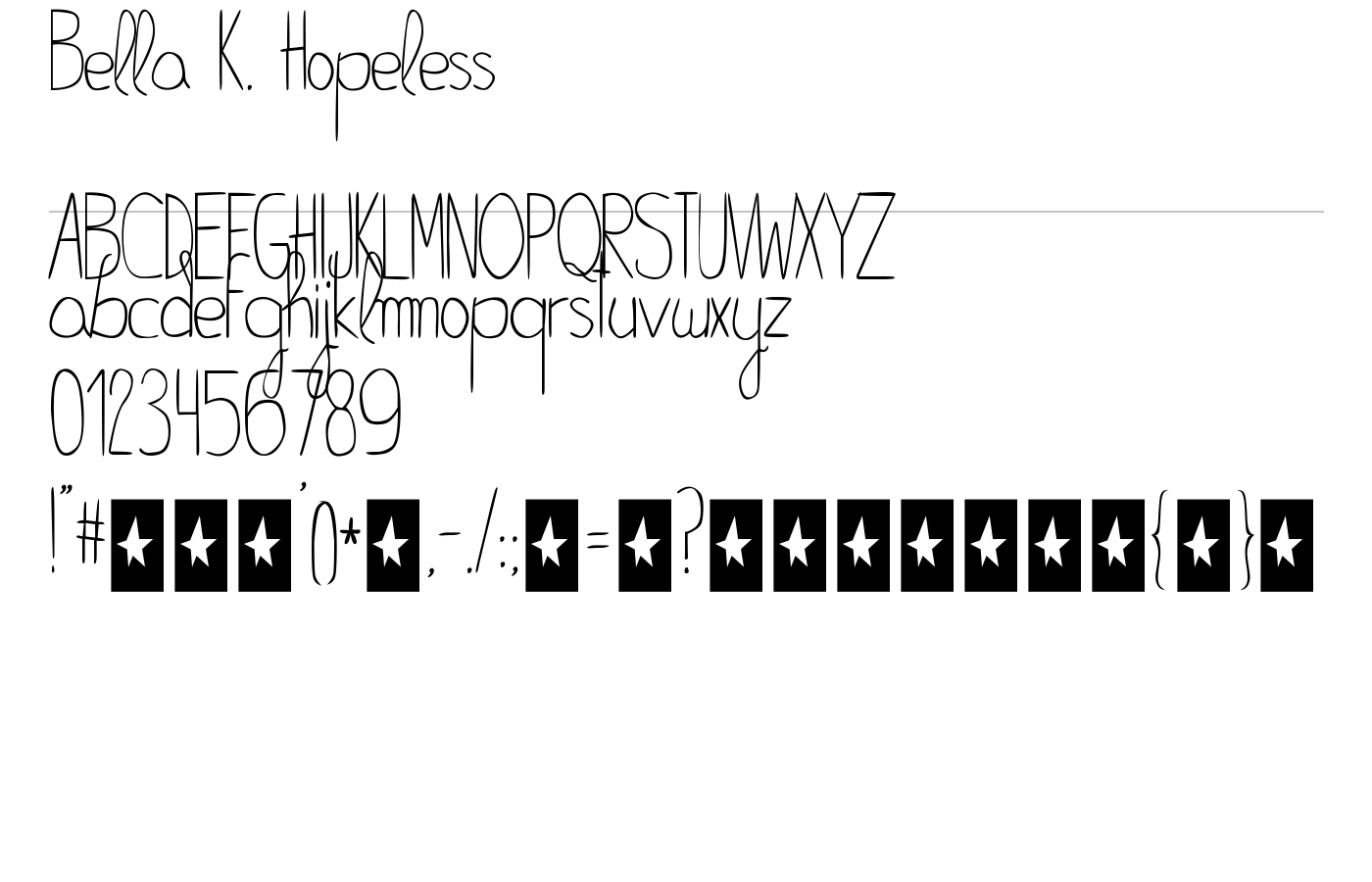
Bella K. Hopeless is a narrow, delicate handwritten sans serif font characterized by its tall, thin letterforms and whimsical loops, giving it a playful yet slightly quirky personality. Its light weight and high x-height make it suitable for creative, informal designs such as personal branding, greeting cards, or artistic projects where a unique and expressive touch is desired. This font works best for headlines or short text, adding a charming and distinctive flair without overwhelming the design.
Bella K. Hopeless Font
About Bella K. Hopeless Font